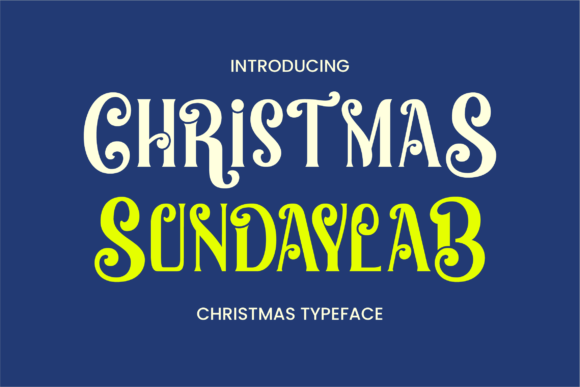
Introducing Christmas Sundaylab Font, the enchanting display font that captures the magic of the most joyous time of the year. This festive and classy font is a masterpiece crafted by ahweproject, designed to bring a touch of winter's charm to your creative projects.
Let Christmas Sundaylab Font transport you to a world of twinkling lights, cozy fireplaces, and the warmth of loved ones. Its elegant curves and playful characters evoke the spirit of the season, making it the perfect font for your holiday designs.
Whether you're creating Christmas cards, invitations, social media posts, or website banners, Christmas Sundaylab Font will add a touch of magic to your creations. Its versatility extends beyond the holiday season, making it a delightful choice for winter-themed projects, festive branding, and whimsical designs.
With Christmas Sundaylab Font, you'll have the power to:
* Design captivating Christmas cards and invitations that spread joy and cheer.
* Create enchanting social media posts that capture the spirit of the season.
* Craft eye-catching website banners that draw visitors in and create a festive atmosphere.
* Design unique winter-themed projects that evoke the beauty of the snowy season.
Christmas Sundaylab Font is more than just a font; it's an experience. It's the perfect way to add a touch of magic and enchantment to your creative projects this holiday season.